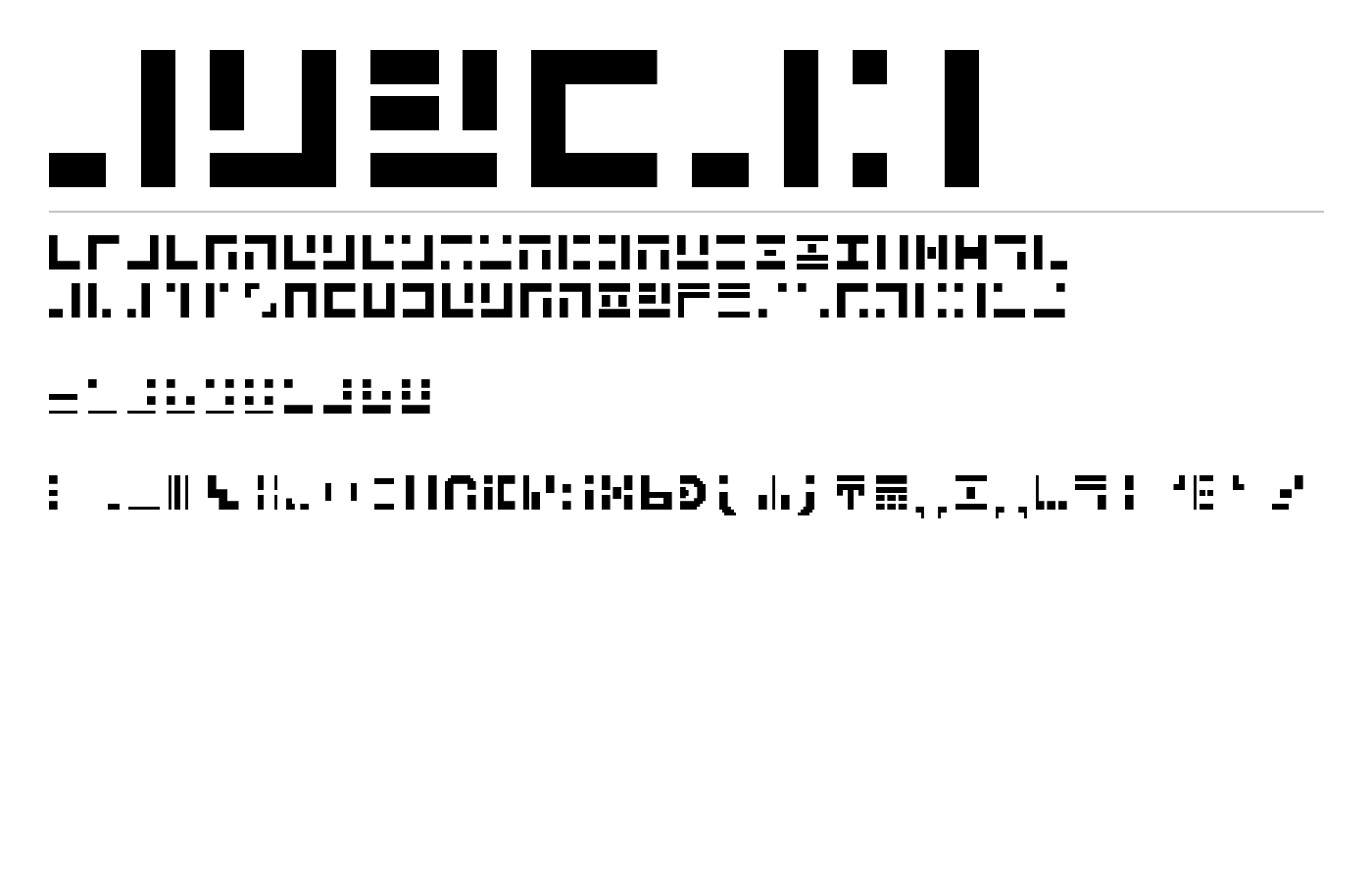
Alphax is a modern, geometric sans serif font characterized by its bold weight and rigid, blocky letterforms that create a highly technical and futuristic feel. Its monospaced, pixel-like design with minimal contrast and sharp edges makes it ideal for digital, sci-fi, or tech-related branding and display purposes. This font works especially well in headlines, logos, and digital interfaces where a unique, contemporary look is desired.